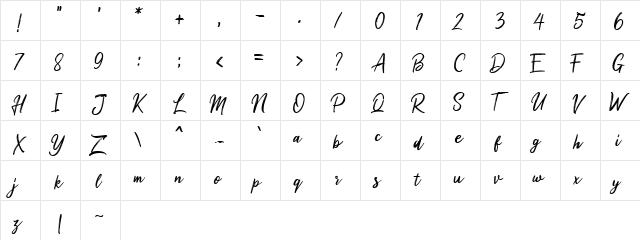
Milea Demo Regular
| Designer | Weape Studio |
Design Context for Milea Demo Typeface
Milea Demo is a composed and adaptable typeface that performs quietly and consistently across a wide range of design contexts.